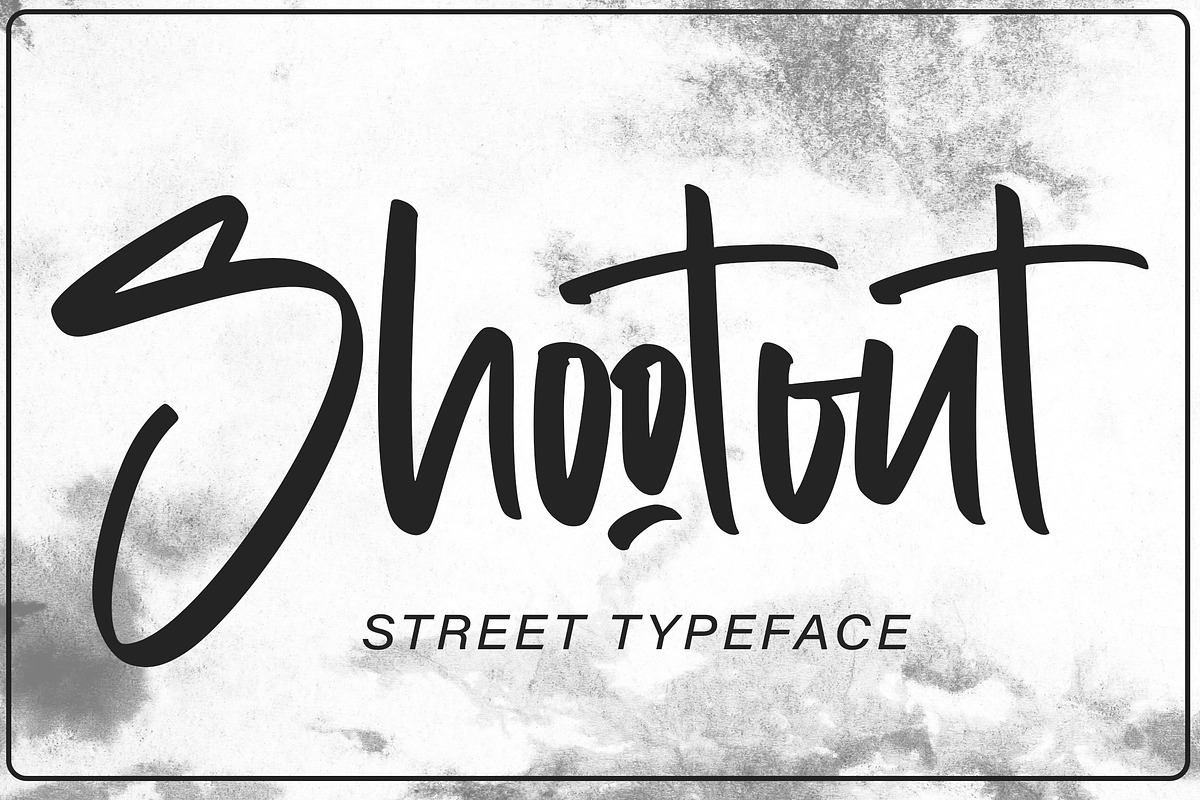
Shootout - Street Typeface Free Download is an edgy and bold font inspired by urban street culture. With its dynamic, rough edges and strong character, this typeface is perfect for projects that require a rebellious, in-your-face vibe. Whether you're designing graffiti-inspired posters, streetwear branding, music album covers, or urban event flyers, Shootout captures the raw energy of the streets. Its unique letterforms bring a sense of movement and excitement, making it stand out in any creative design. With Shootout - Street Typeface Free Download, you can experiment with this bold look in personal or concept work before purchasing the full commercial license. Add an unmistakable urban edge to your designs with this striking and memorable street-style font.